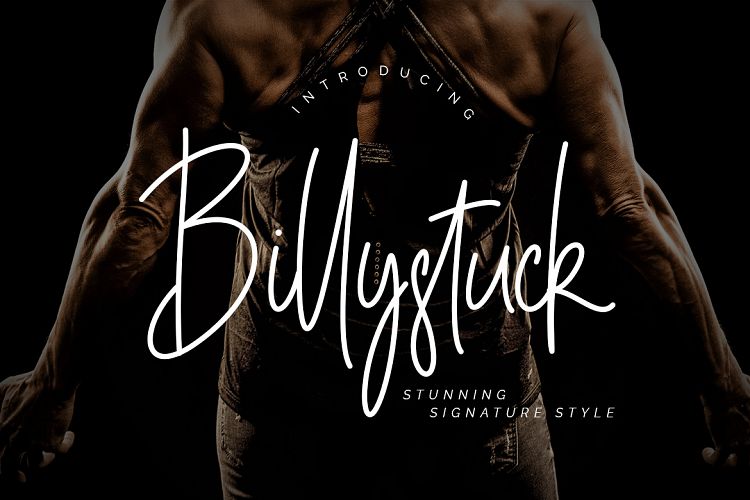
Billystuck Signature Font
Hello…!! Great to see you :). This is new modern signature font. Give your designs an authentic handcrafted feel. Introducing Billystuck Font. Billystuck Signature Font is stylish and stunning signature typeface with personal touch movement which make your latest project looks amazing.
Billystuck is perfect for branding projects, logo, wedding designs, social media posts, advertisements, product packaging, product designs, label, photography, watermark, invitation, stationery and any projects that need handwriting taste.